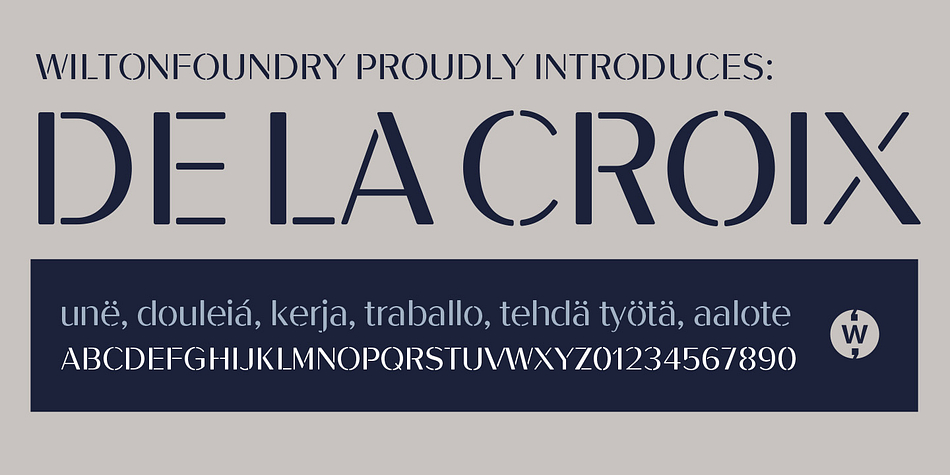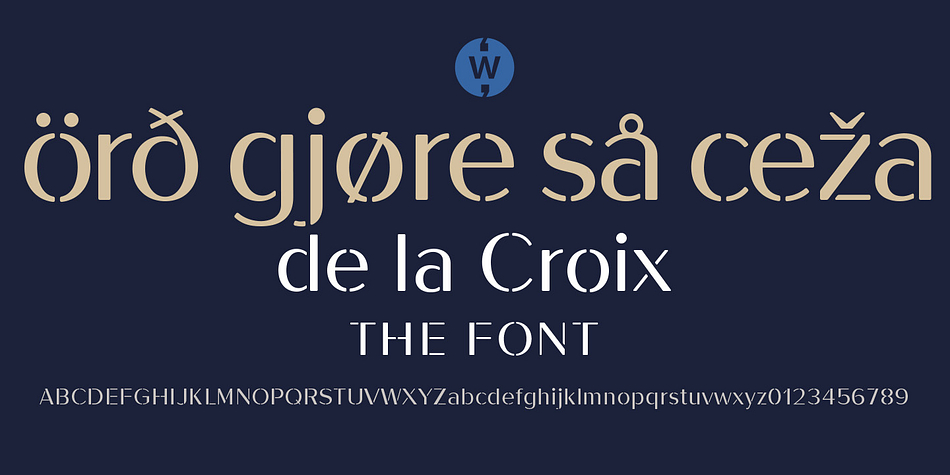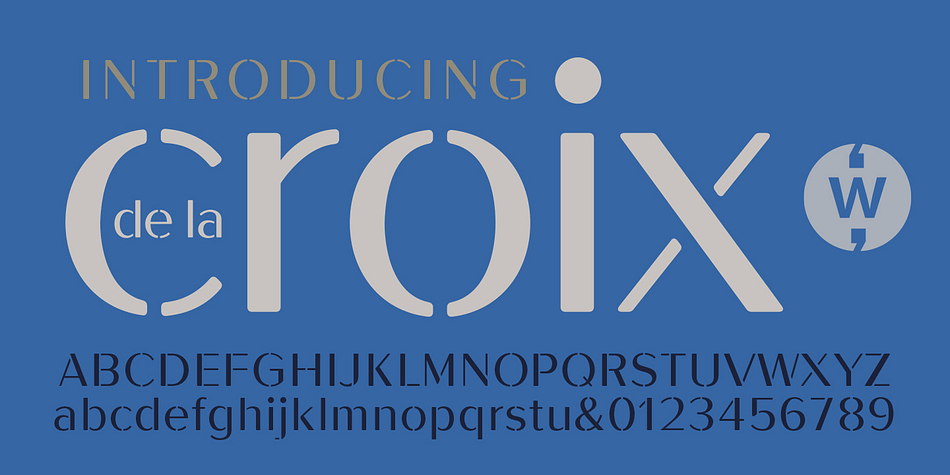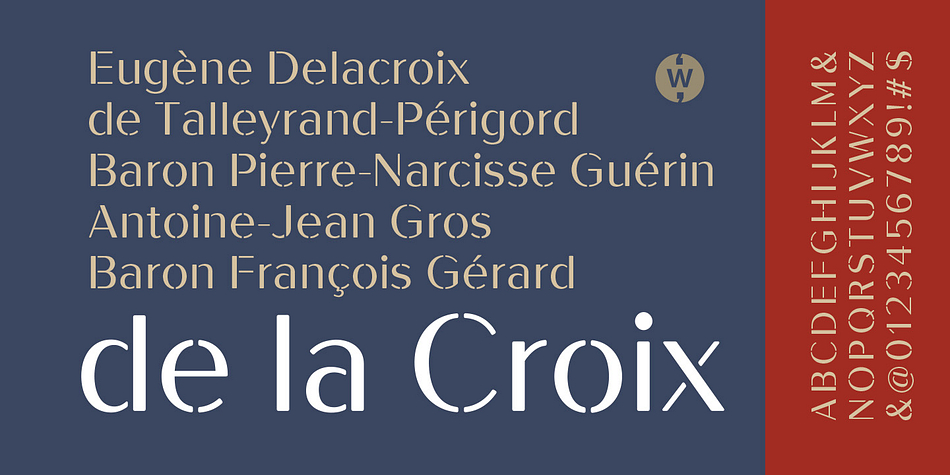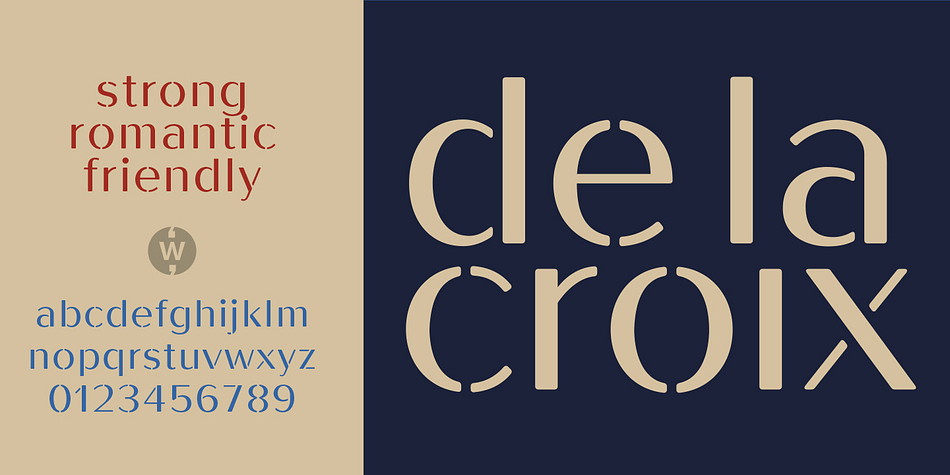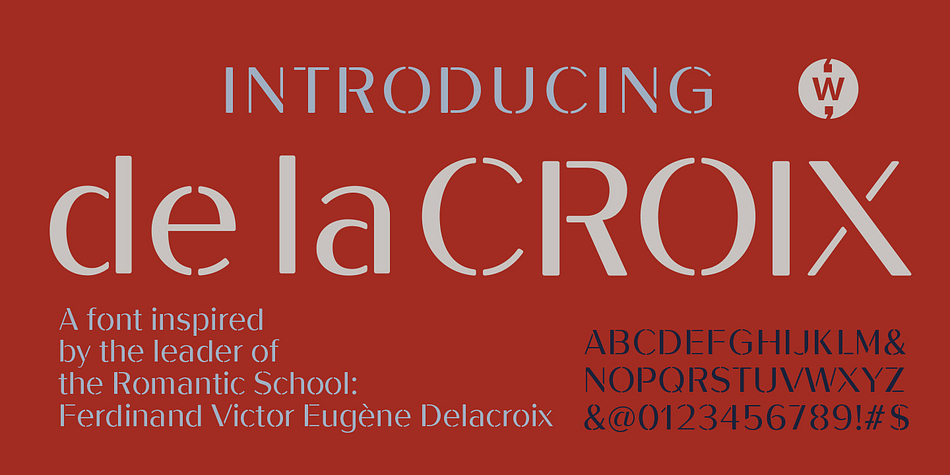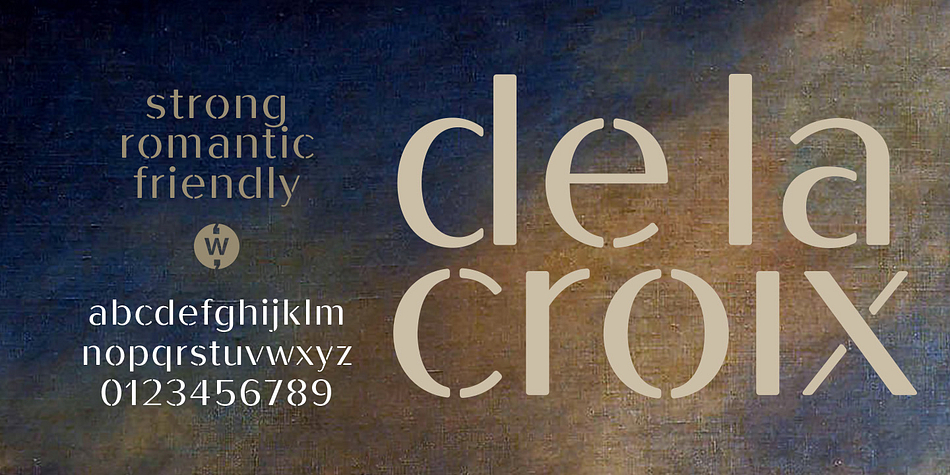
Designed by Robbie de Villiers, De La Croix is a stencil font published by Wilton Foundry.
The De La Croix font was inspired by the works of Eugène Delacroix, leader of the Romantic School.
De La Croix is a strong, earthy, sophisticated and romantic font that plays well in a wide variety of placements like posters, signage, advertising, fashion, display, wayfinding, publications, packaging, logotypes, and more.